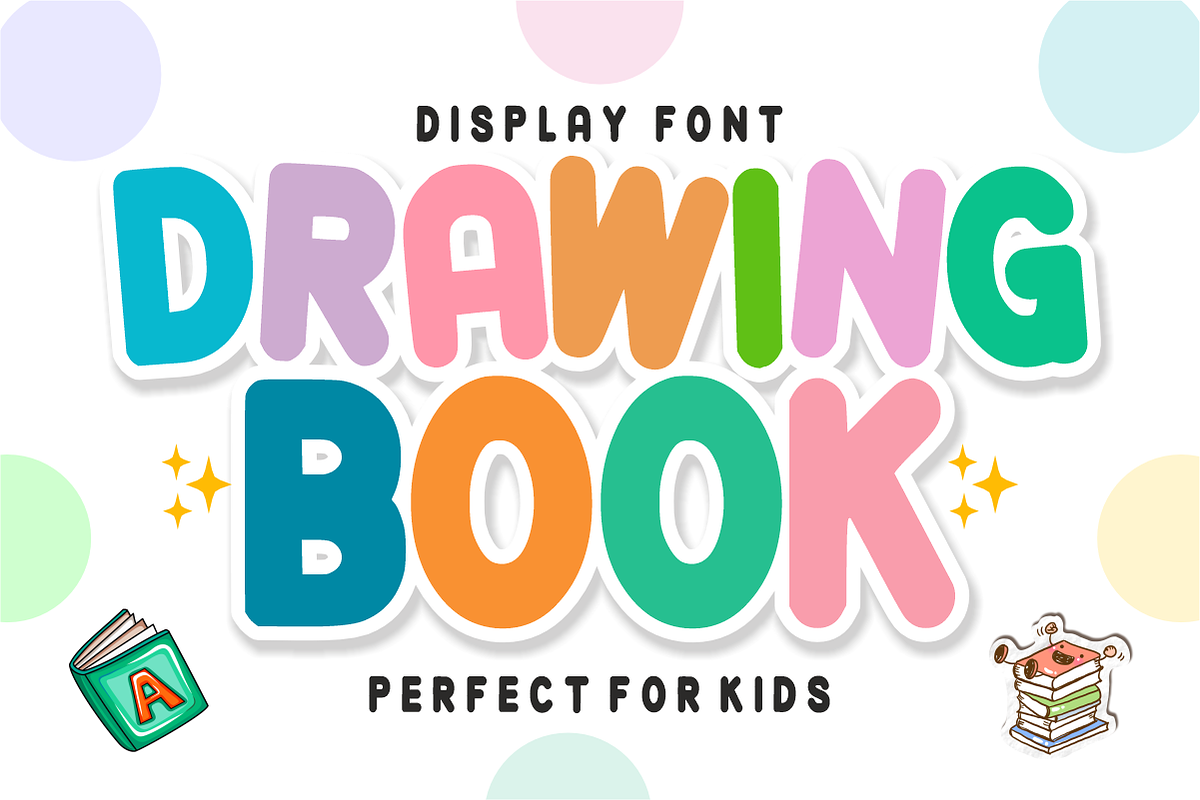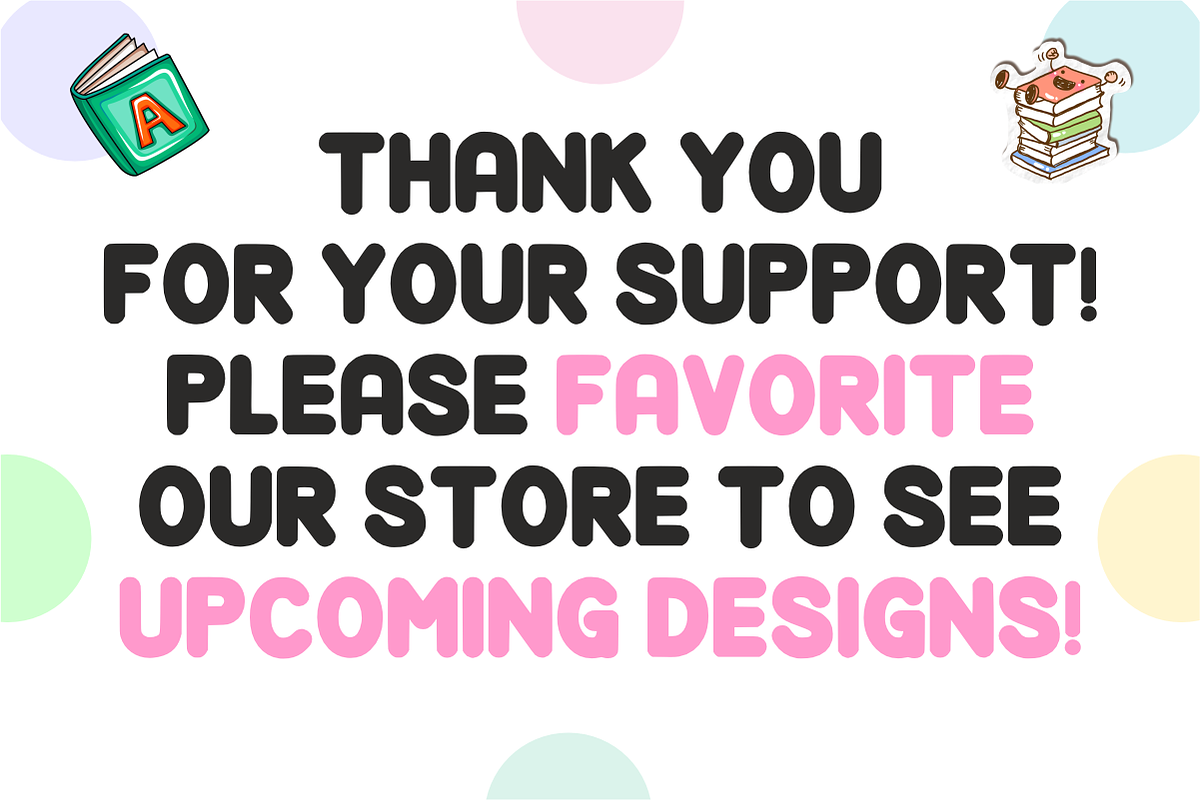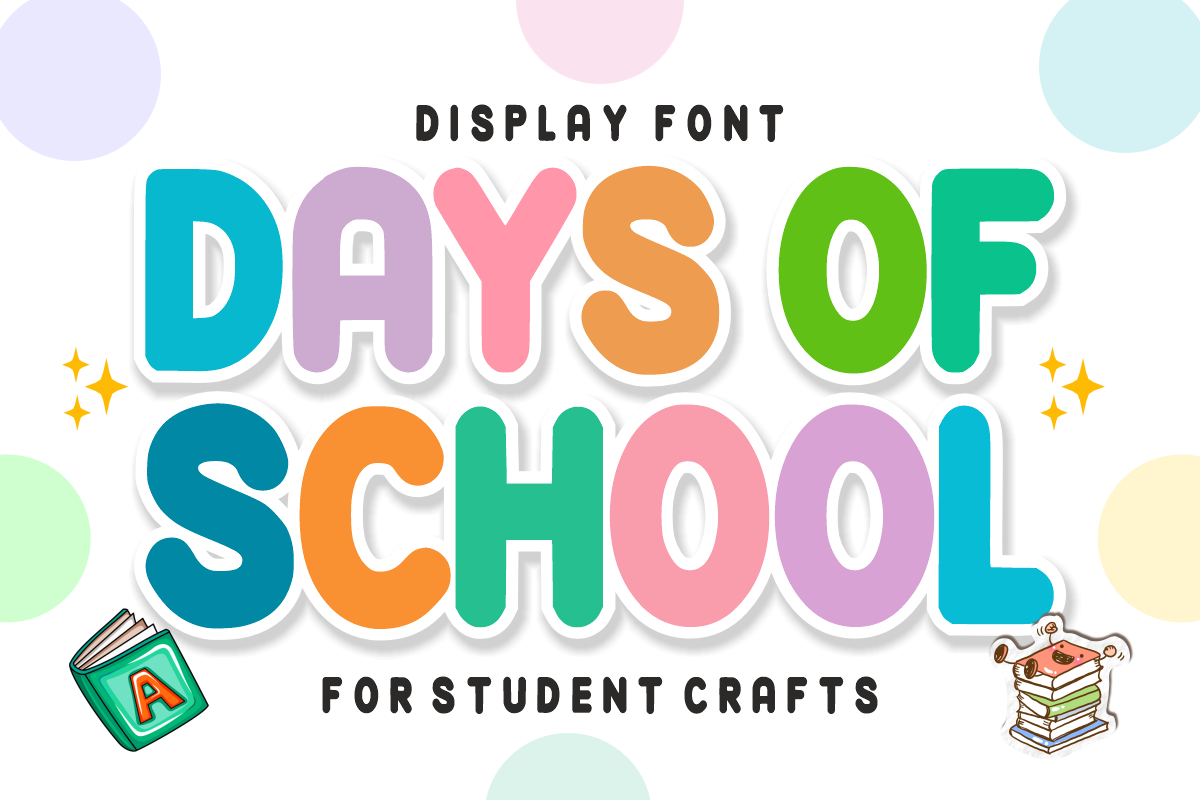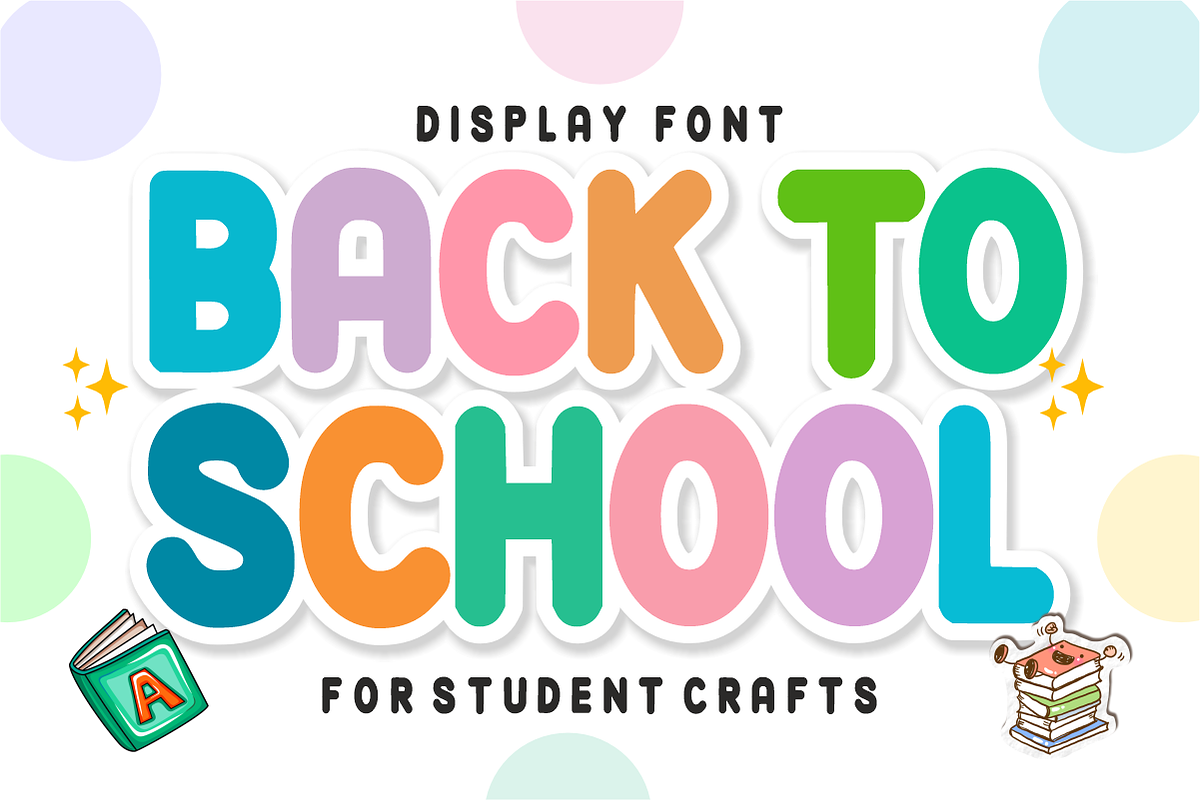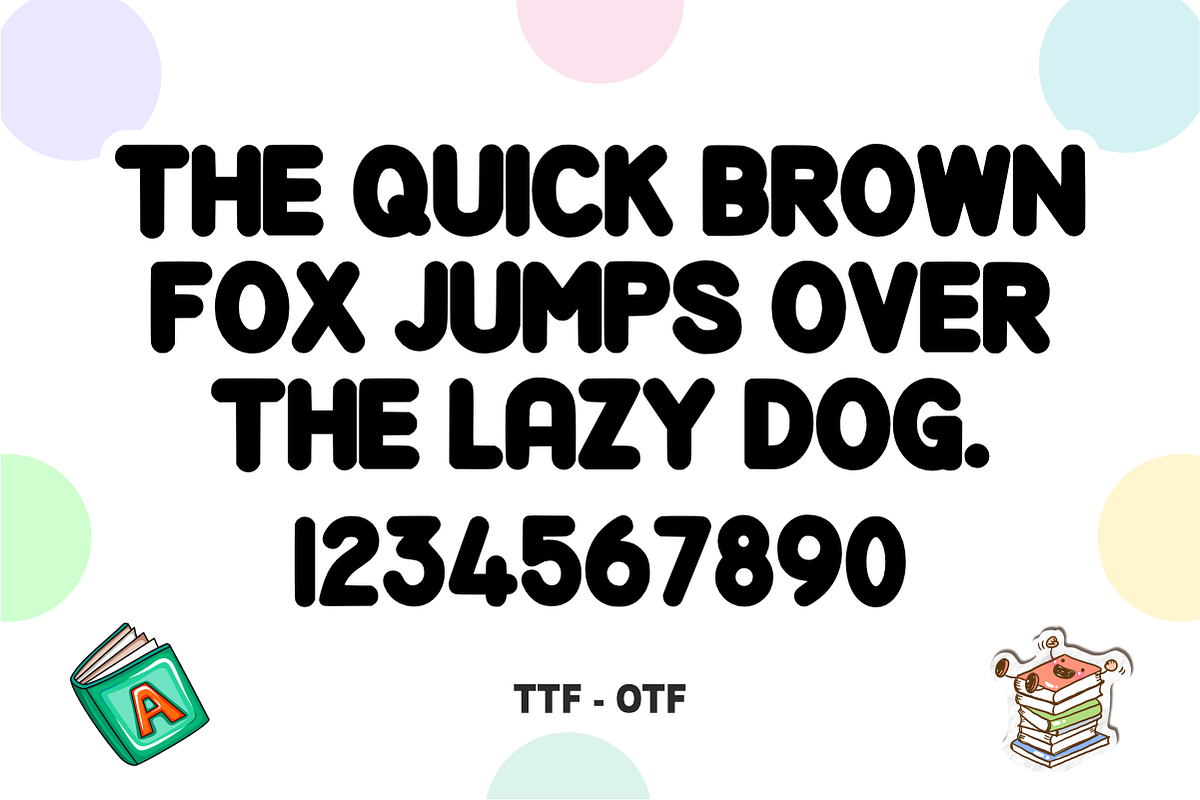
Days Of School - Playful School Font
Days Of School is a cheerful, bold, and chunky display font featuring friendly, rounded letterforms designed to bring excitement, creativity, and schoolhouse joy to student craft projects. Perfect for back-to-school season, classroom decor, educational materials, and kids' apparel, this vibrant font makes every headline stand out with fun, energetic charm. Every character is cleanly vectorized to guarantee high-resolution prints and smooth, effortless cutting on Cricut and Silhouette machines.
Uppercase Character Set
Numbers & Basic Punctuation
Ideal For:
Teachers Pay Teachers (TpT) authors creating back-to-school worksheets, bulletin board titles, classroom signs, and learning games
Cricut, Silhouette, and HTV vinyl cutting projects for school backpacks, pencil cases, kids' t-shirts, and student crafts
Etsy sellers designing custom student planner stickers, educational posters, flashcards, and greeting cards
Print-on-Demand (POD) products, children's books, school supplies, and custom kids' merchandise
Canva template creators making class newsletters, back-to-school flyers, and educational social graphics
Custom die-cut sticker packs, planner decals, and digital scrapbooking layouts